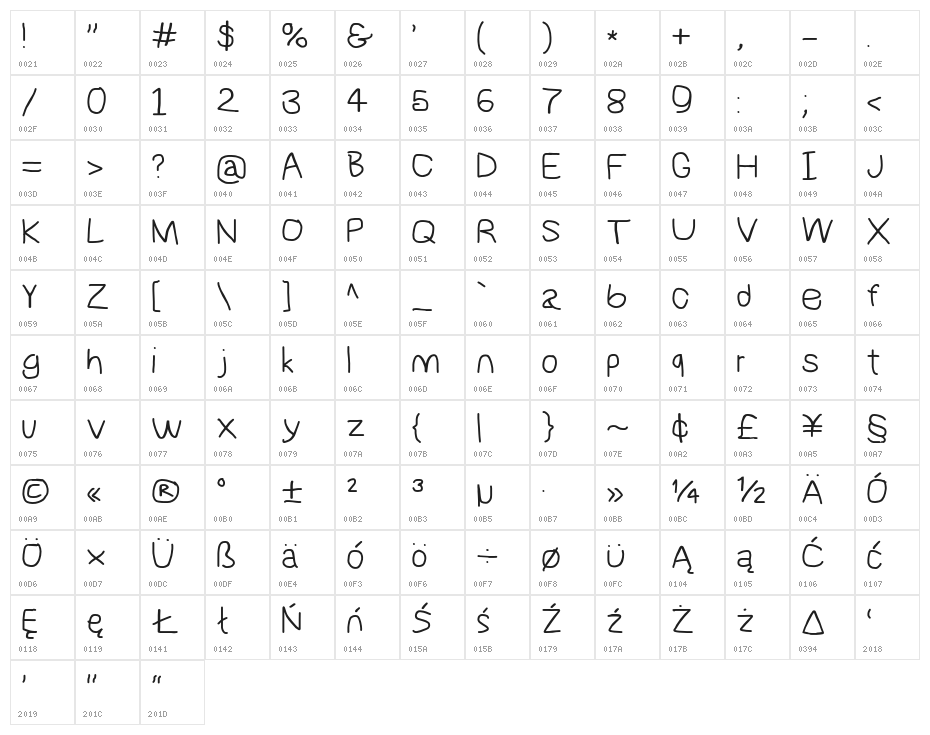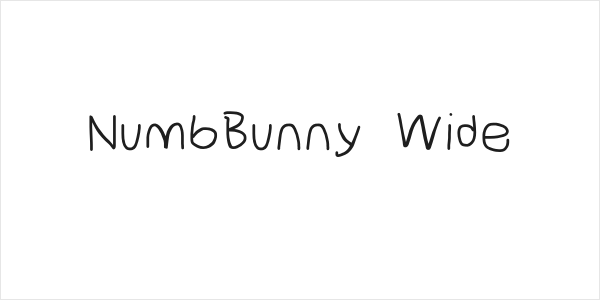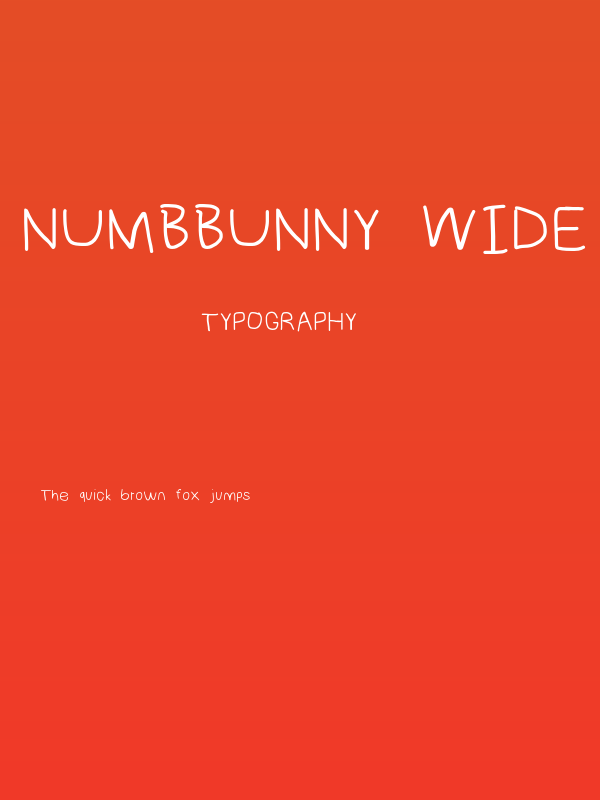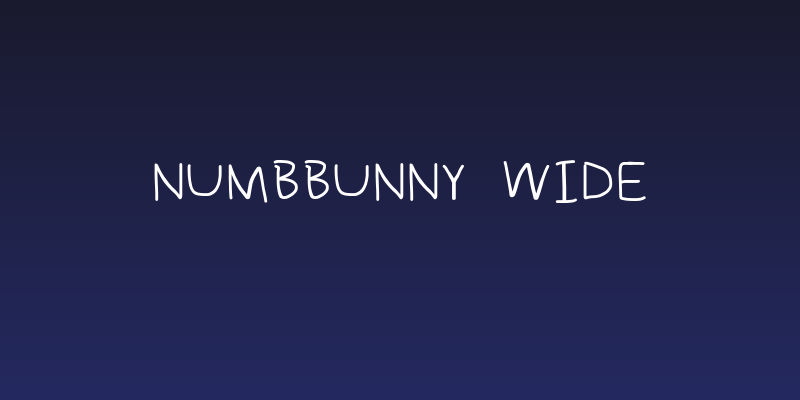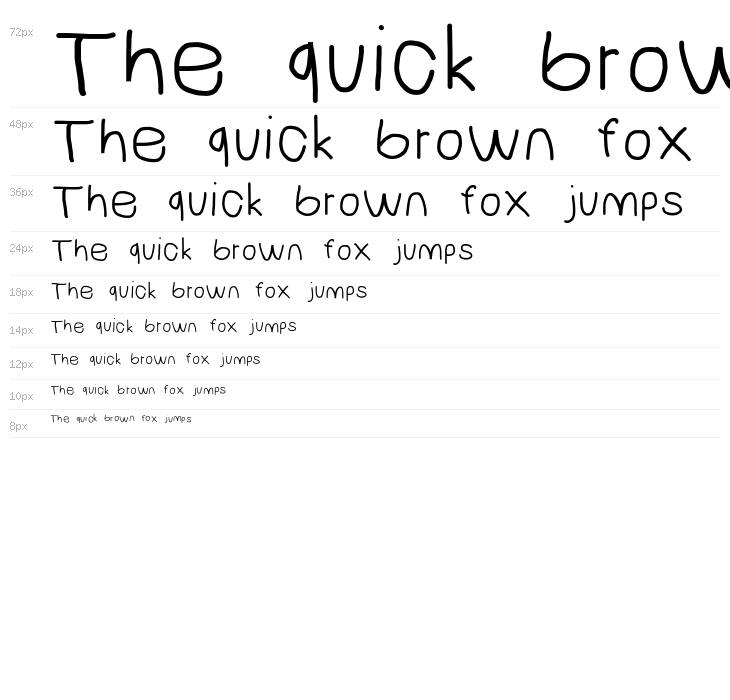
NumbBunny Wide Font
NumbBunny Wide Description
This font features a playful and whimsical handwritten style, characterized by its rounded and slightly irregular letterforms. The uppercase and lowercase letters maintain a consistent width, giving it a cohesive appearance. The strokes are smooth and have a casual feel, making it approachable and friendly. The numerals are clear and easy to read, with a similar playful touch. Special characters are well-integrated, maintaining the overall style. This font is ideal for projects that require a personal and informal touch, such as children's books, greeting cards, or creative branding.
| Overall Style | Playful, Casual |
| Proposed Projects | Children's books, greeting cards, creative branding, informal invitations. |